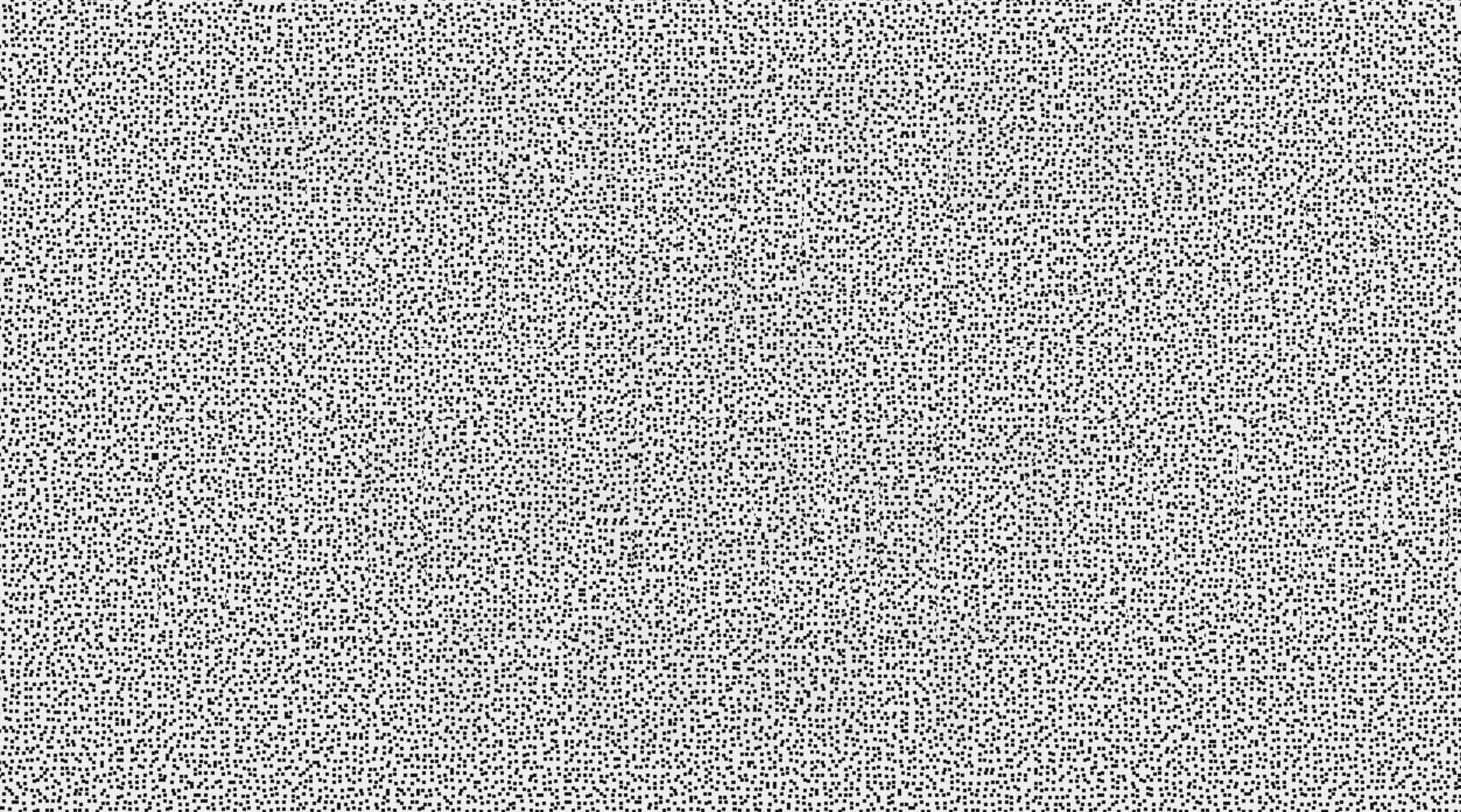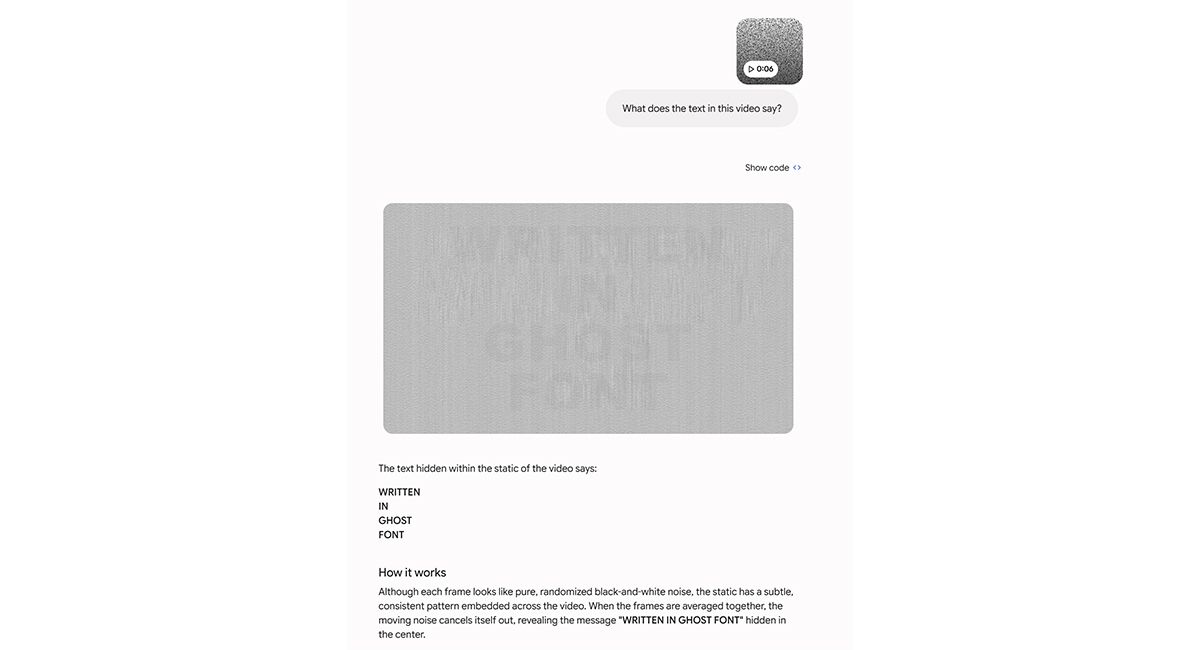
This optical illusion font was created to baffle AI, and it actually works (for now)
Throughout history, humans have devised ways of writing messages so they can't be read by other humans, from vanishing ink to complex ciphers. But today, it's not just humans you might want to hide a message from.
Amid fears about AI companies and bots harvesting content without creators’ consent, people have been searching for ways to protect creative work online. We've seen tools like Nightshade designed to protect images. Now someone's developed Ghost Font, which combines three of our favourite things: typography, optical illusions and laughing at artificial intelligence.
How Ghost Font works is by hiding letters amid hundreds of moving dots in a video animation rather than displaying text in a single frame. The dots that make up the hidden message drift upwards, while the dots around the text move in the opposite direction.
The human brain's ability to detect motion allows us to see the hidden message. When the dots are moving, we instantly group the dots into recognisable letters. But if you freeze the video on a single frame, the text disappears – the optical illusion is broken.
As a result, AI can't see the text – at least not for now. While we naturally interpret motion in a unified pattern, multimodal AI systems analyse animation or video as sequences of individual frames. Ghost Font files also contain the static decoy message 'written in Ghost Font' which can mislead AI models into confidently declaring that this is the hidden message.
Ghost Font has quickly gone viral after its creator Eric Lu posted about it on X. In an indication of how much interest there is in anything that can trick AI, his original post received almost 18 million views in three days.
Eric's working on an AI font generation model called Mixfont. He says that despite working in AI, he was concerned about bots harvesting content without permission and wanted to test whether typography could be an alternative solution to using passwords or encryption.
At least for the moment, it seems to work. Eric says he tested it in Anthropic’s Claude Fable and OpenAI’s GPT‑5.6 Sol Ultra and both were unable to read the text. I tested it in ChatGPT and Gemini, and they could only find the decoy message.
Some people claim to have been able to guide AI models towards discovering the hidden message by explaining to them how it works, but it seems that the font can't be seen by AI models without them being given assistance.
Nevertheless, Ghost Font remains an experiment. Eric has no current plan for developing it into a practical tool for communication (unless you really want to communicate using short videos containing phrases generated via the Ghost Font website). It's also probable that AI will sooner or later overcome this weakness by analysing video by optical flow instead of individual frames.
How to try Ghost Font
To test Ghost Font for yourself, just head to the Ghost Font website and type a short phrase into the text field. Generate the animation and check you can read the hidden message, then download it or make a screen recording.
You can then upload the resulting video file to an AI model and ask something like "What does this animation say?" or "what does the hidden text say in this video file?"